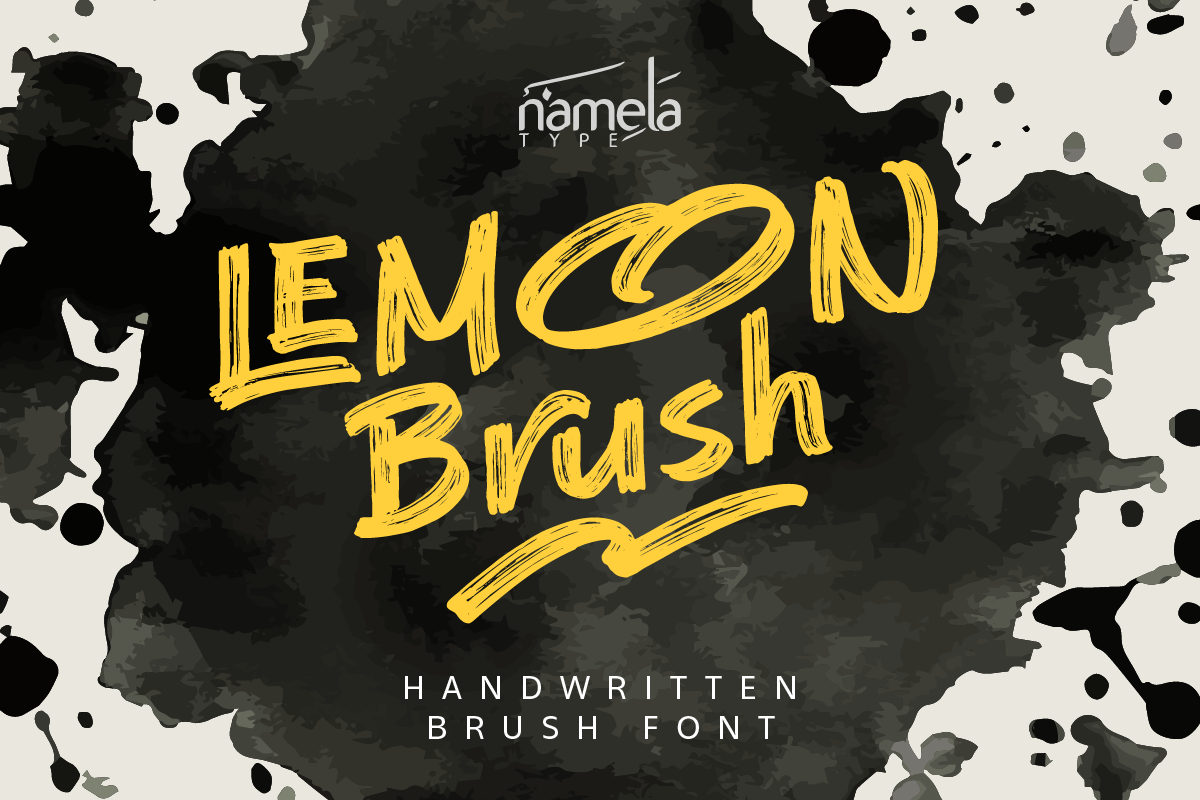
Lemon Brush Regular
Lemon Brush Font - A Handwritten Brush Typeface for Branding & Apps Some typefaces are designed to stay quietly in the background. Others are built to command attention—and Lemon Brush clearly belongs to the latter. Energetic, textured, and full of personality, this expressive handwritten font transforms natural brush strokes into a bold visual statement. Created by Namelatype, Lemon Brush Handwritten Font captures the spontaneity of hand-painted lettering and translates it into a digital form